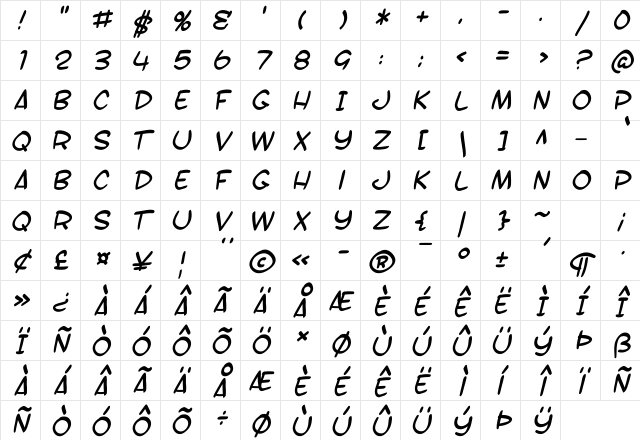
Complete SF Toontime B Italic glyph index. Displaying only characters natively supported by SF Toontime B Italic font.
SF Toontime B is a composed and adaptable typeface that performs quietly and consistently across a wide range of design contexts. The slanted form adds forward momentum and visual energy.